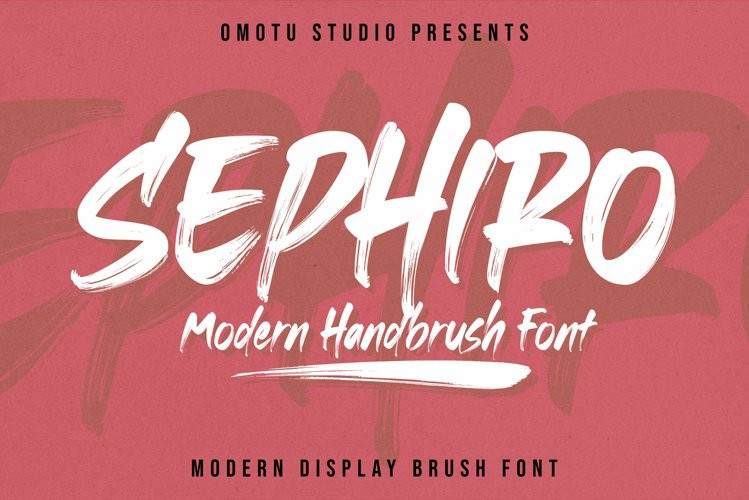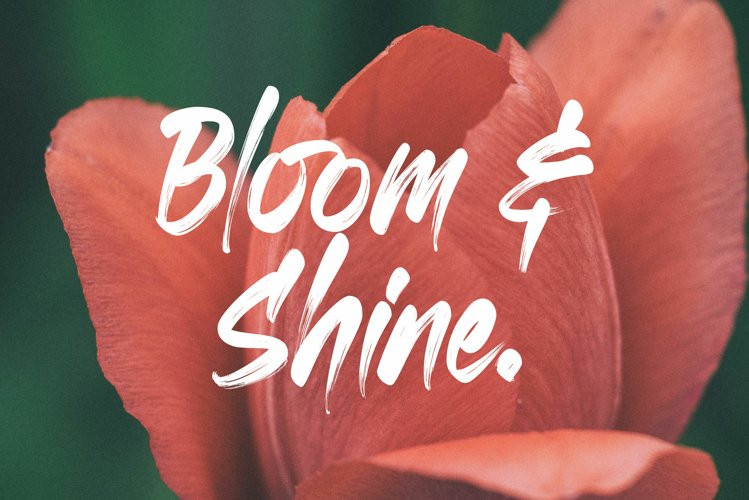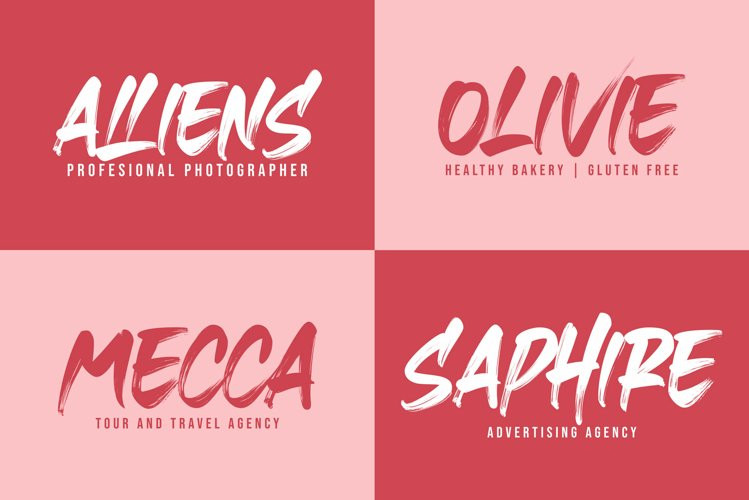
Sephiro Font
SephiroSephiroSephiroSEPHIRO! A handwritten display brush font. SEPHIRO font is suitable for branding, logotype, apparel, T-shirt, Hoodie, product packaging, quotes, flyer, poster, book cover, advertising, etc.
Sephiro